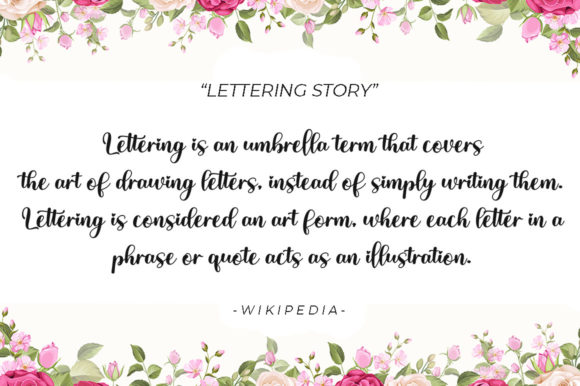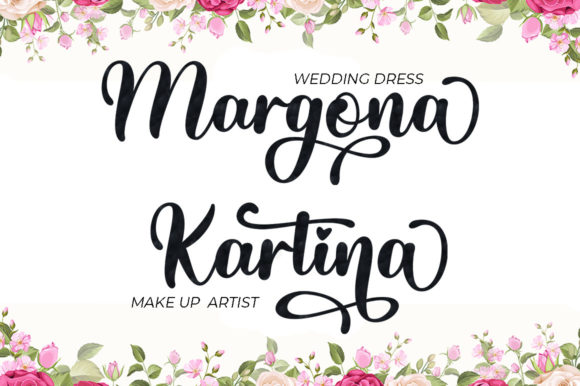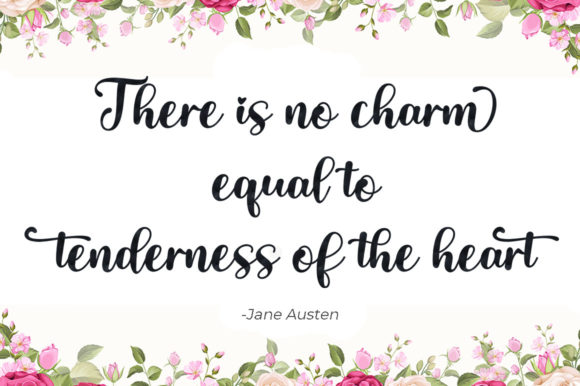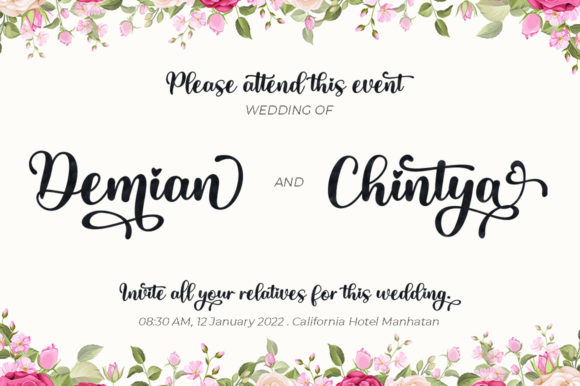
Austina Font: The Ultimate Romantic Calligraphy Typeface for Your Design Projects
Are you a designer or crafter looking for a font that can add a touch of luxury and romance to your design projects? Look no further than Austina Font! This beautiful calligraphy typeface is designed to make your designs stand out with its unique and elegant style. In this article, we’ll take a closer look at Austina Font, its features, and how you can use it to elevate your design projects.
What is Austina Font?
Austina Font is a romantic and sweet calligraphy typeface that features characters that dance along the baseline. This elegant font is perfect for designers who want to add a touch of luxury and sophistication to their designs. With its flowing lines and delicate curves, Austina Font is sure to make your designs stand out from the crowd.
Key Features of Austina Font
- Romantic and Sweet Design: Austina Font features a romantic and sweet design that is perfect for designers who want to create elegant and sophisticated designs.
- Calligraphy Style: This font features a calligraphy style that is characterized by its flowing lines and delicate curves.
- Characters that Dance along the Baseline: The characters in Austina Font are designed to dance along the baseline, creating a sense of movement and fluidity.
- Luxury and Sophistication: Austina Font is perfect for designers who want to add a touch of luxury and sophistication to their designs.
How to Use Austina Font in Your Design Projects
Austina Font is a versatile font that can be used in a variety of design projects, including:
- Wedding Designs: Austina Font is perfect for wedding designs, such as wedding invitations, wedding cards, and wedding stationery.
- Branding and Packaging: This font can be used in branding and packaging designs to add a touch of luxury and sophistication.
- Signage and Displays: Austina Font can be used in signage and display designs to create eye-catching and elegant designs.
- Digital Designs: This font can be used in digital designs, such as social media graphics, blog posts, and website headers.
Tips for Using Austina Font Effectively
Here are some tips for using Austina Font effectively in your design projects:
- Use it Sparingly: Austina Font is a elegant and sophisticated font, so use it sparingly to avoid overwhelming your design.
- Pair it with Other Fonts: Pair Austina Font with other fonts to create a unique and interesting design.
- Experiment with Colors and Textures: Experiment with different colors and textures to add depth and interest to your design.
- Keep it Simple: Keep your design simple and elegant to let Austina Font shine.
Austina Font is a beautiful and elegant calligraphy typeface that can add a touch of luxury and romance to your design projects. With its unique and sophisticated design, Austina Font is perfect for designers who want to create elegant and eye-catching designs. By following the tips outlined in this article, you can use Austina Font effectively in your design projects and create stunning designs that will leave a lasting impression.